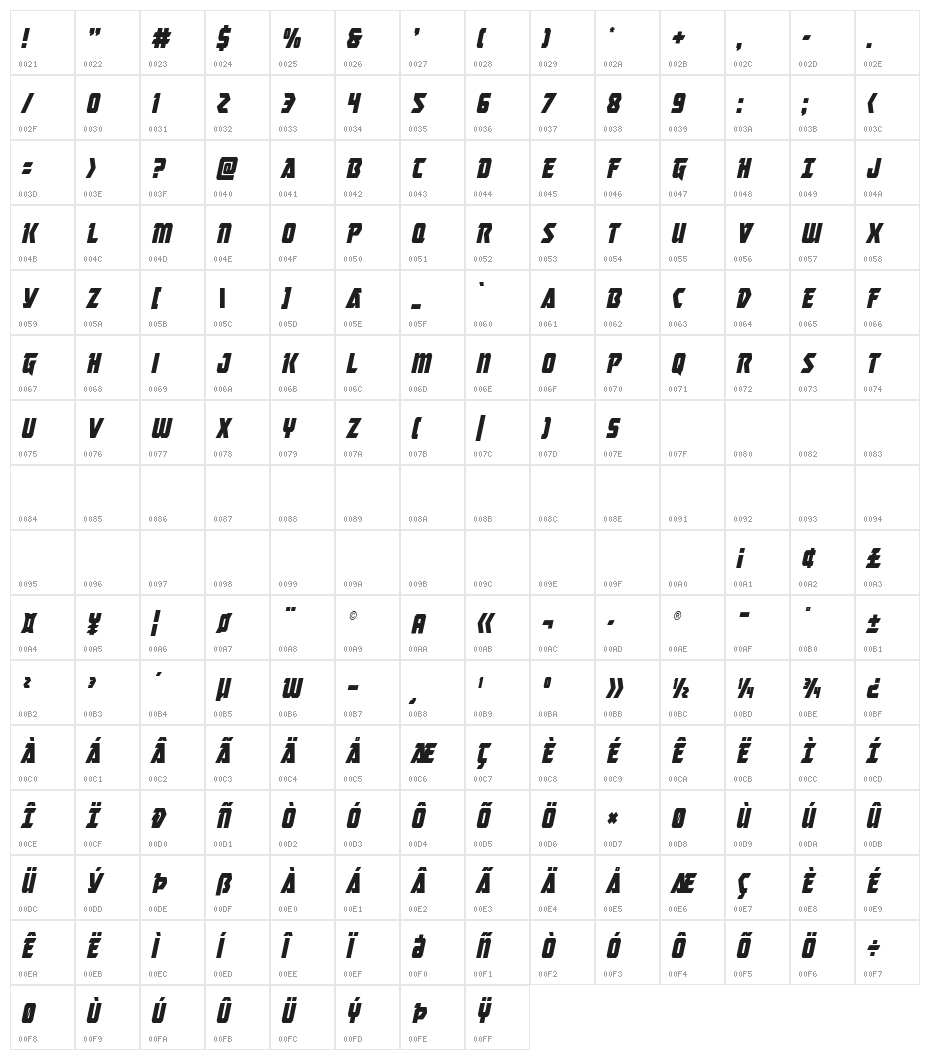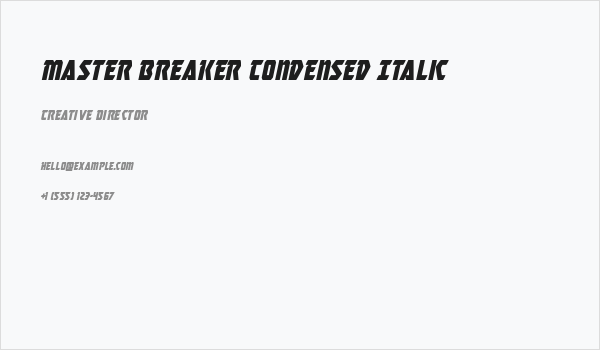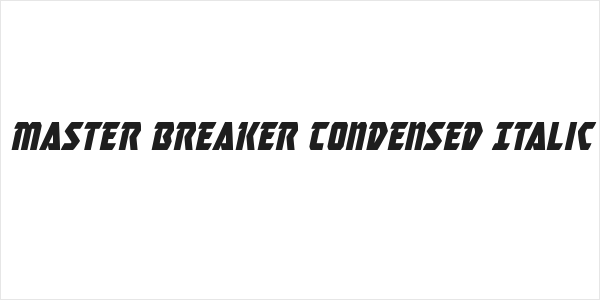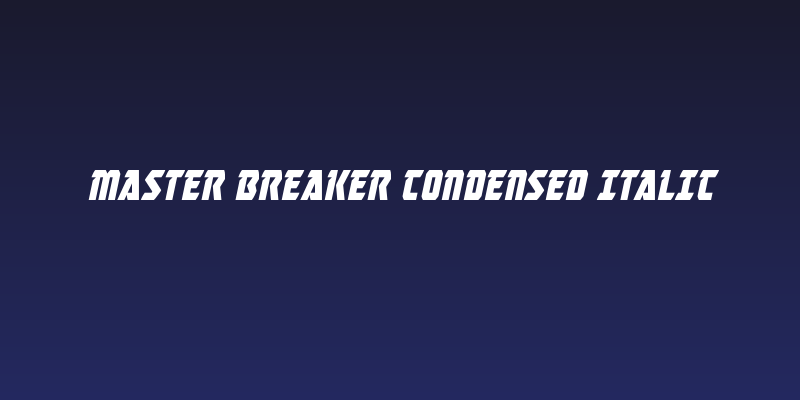
Master Breaker Condensed Italic Font
Master Breaker Condensed Italic Description
This font features a bold and dynamic design with a condensed and italicized style. The characters are sharply angled, giving a sense of movement and energy. The uppercase letters are particularly striking, with a strong geometric influence that makes them stand out. The numbers and special characters maintain the same bold and angular aesthetic, ensuring consistency across all elements. This font is ideal for projects that require a modern and impactful look, such as sports branding, action-themed posters, or dynamic headlines.
| Proposed Projects | Ideal for sports branding, action-themed posters, dynamic headlines, and modern advertising. |